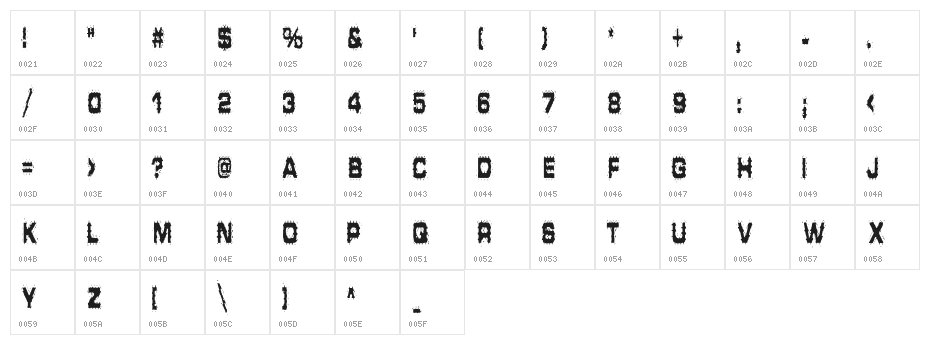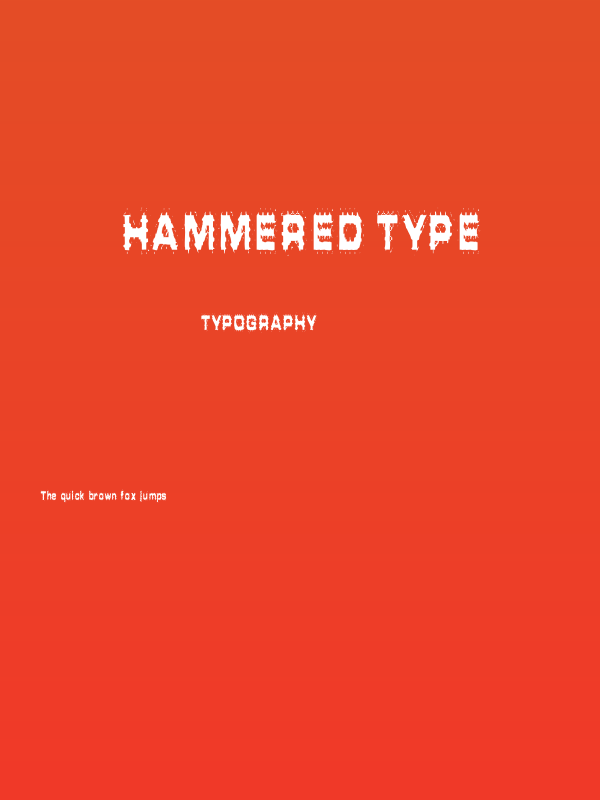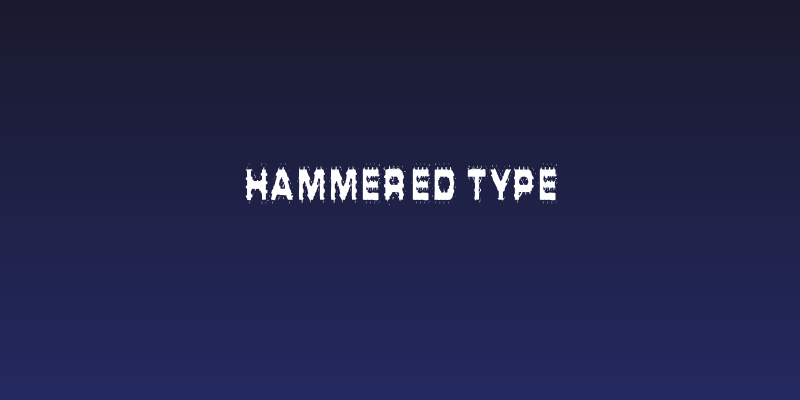
Hammered Type Font
Hammered Type Description
This font features a rugged, distressed appearance, reminiscent of a hammered metal texture. The characters are bold and impactful, with irregular edges that give it a handcrafted, industrial feel. The uppercase and lowercase letters maintain a consistent style, with a slight variation in size and shape that adds to the font's unique character. The numerals and special characters follow the same design principles, ensuring a cohesive look across all elements. This font is ideal for projects that require a bold, eye-catching typeface with a touch of grunge or vintage appeal.
| Overall Style | Industrial, Vintage |
| Proposed Projects | Ideal for posters, album covers, branding for industrial or vintage-themed products, and any design needing a bold, textured typeface. |